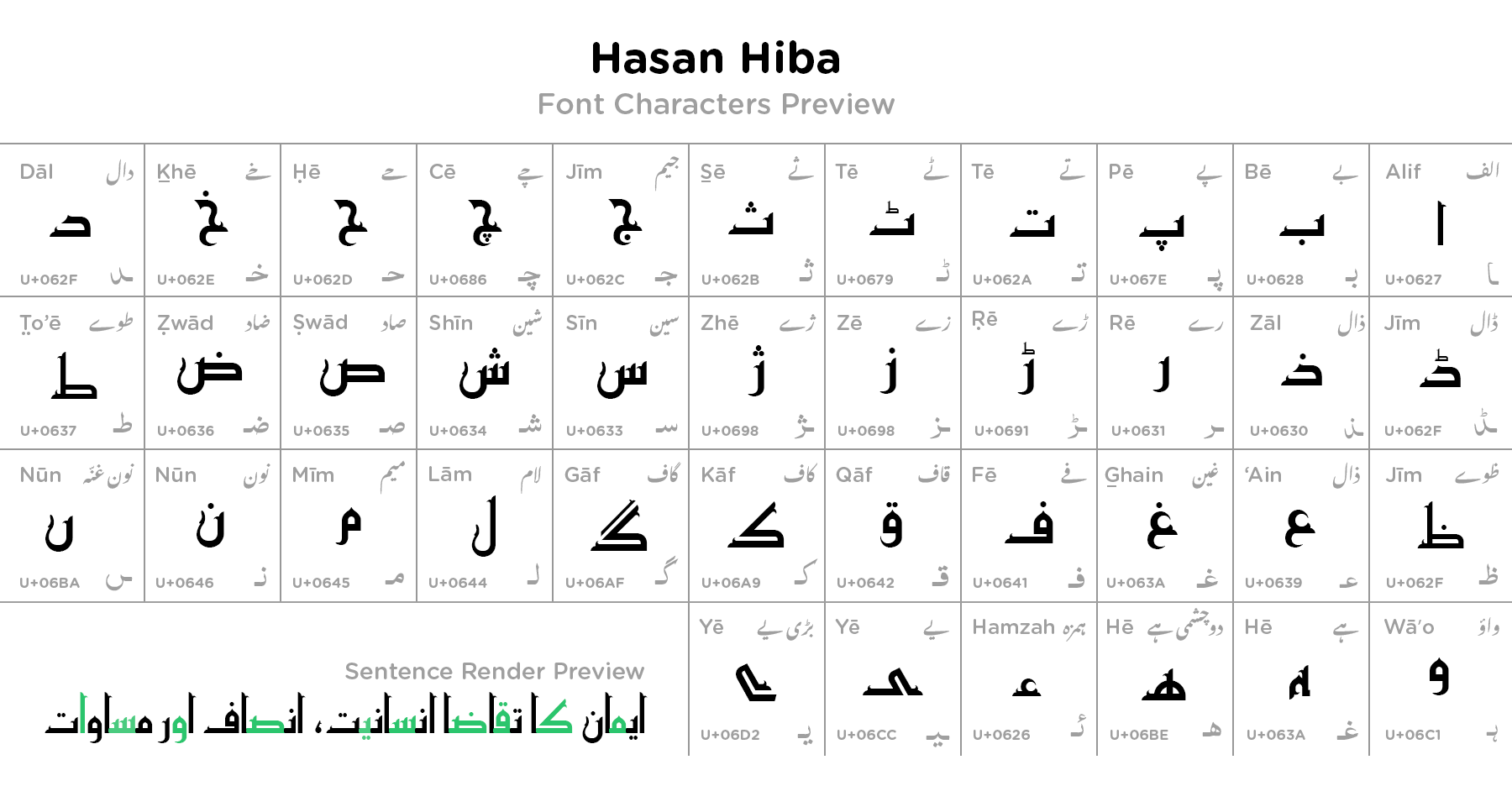
Hassan Hiba is an Arabic typeface that combines the traditional elements of Arabic calligraphy with a modern, bold design. The font was published by Hiba Studio in 2004. It combines the essence of Fatemic Kufi calligraphy. It has a unique structural design that includes sharp lines, bold strokes, and an authoritative presence. The font has sharp and angular cuts that give it a strong visual appearance. Hassan Hiba reflects a symmetrical and geometric style. Some characters have decorative flourishes at their ends. The letters are connected seamlessly while maintaining their decorative nature and heavy-weight appearance. The body of the font is thick, while the connecting strokes are thinner, which mimics the natural flow of traditional Arabic calligraphy. Its letters are vertically extended, representing the font's bold personality. You can use it for headings, logos, banners, billboards, web and app design, and more.